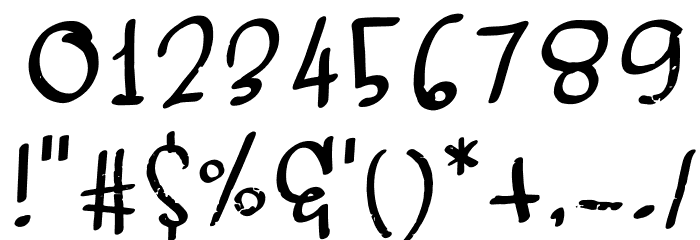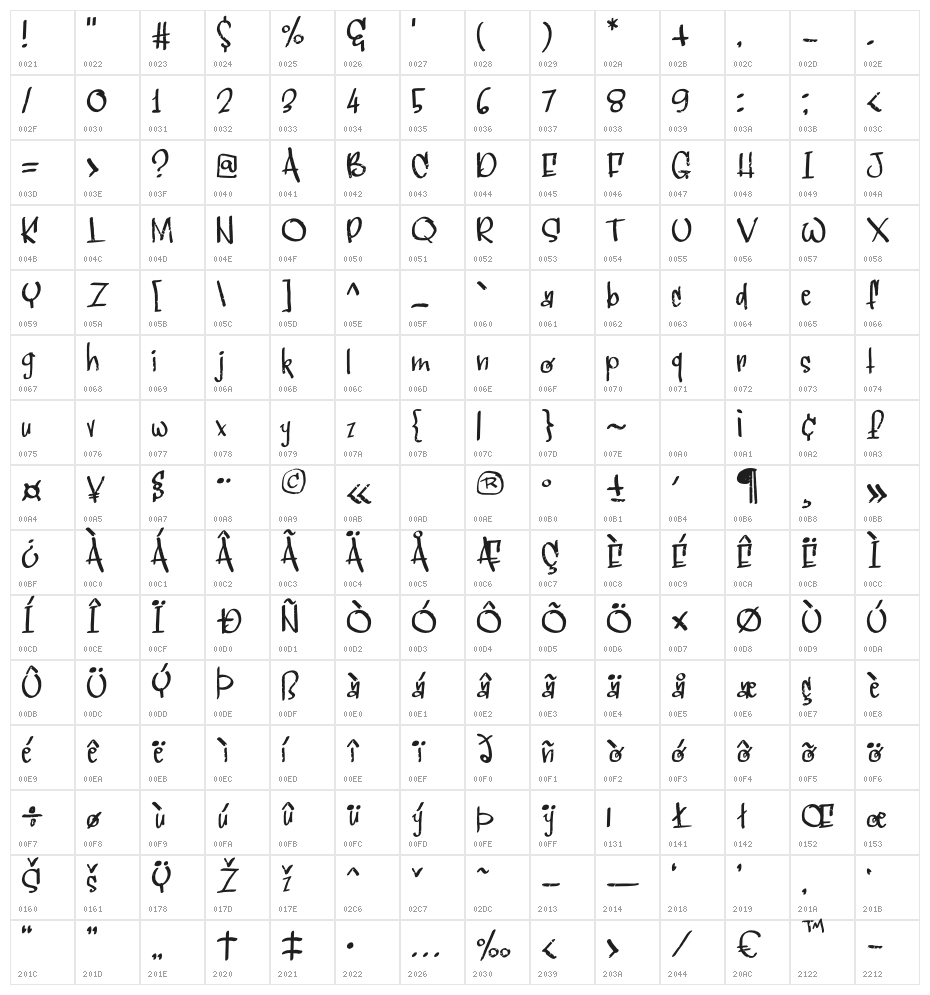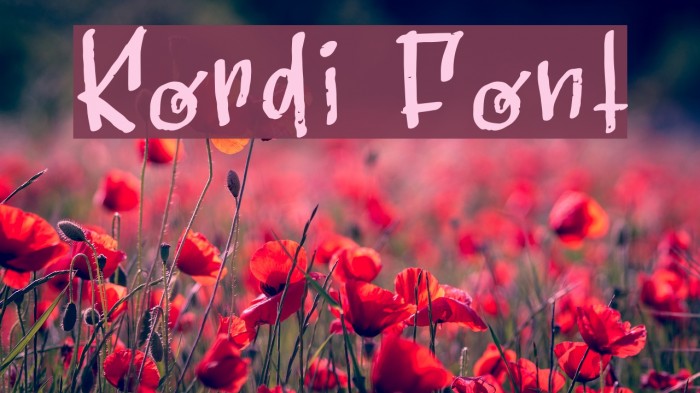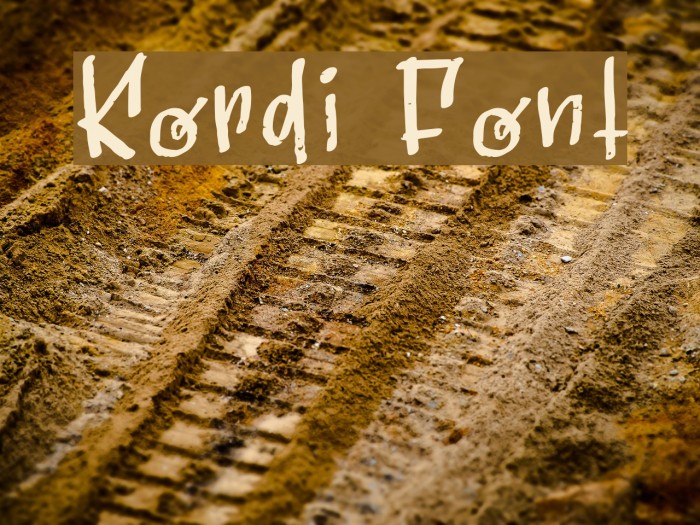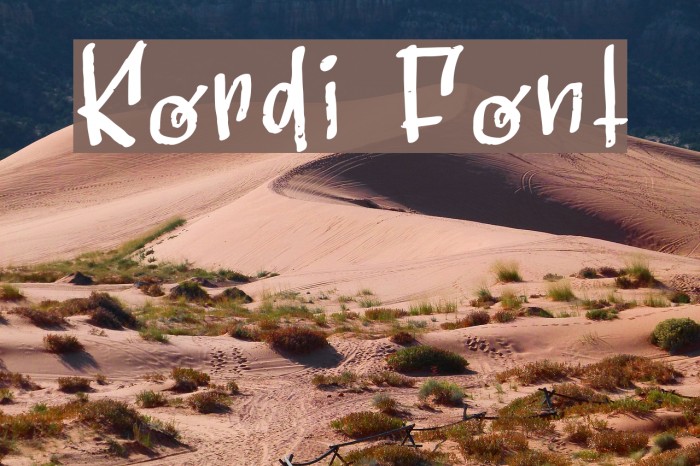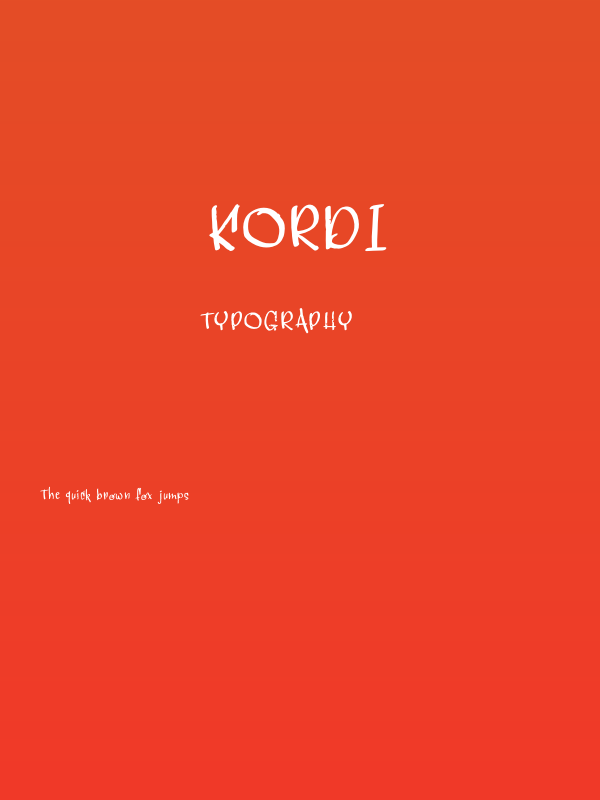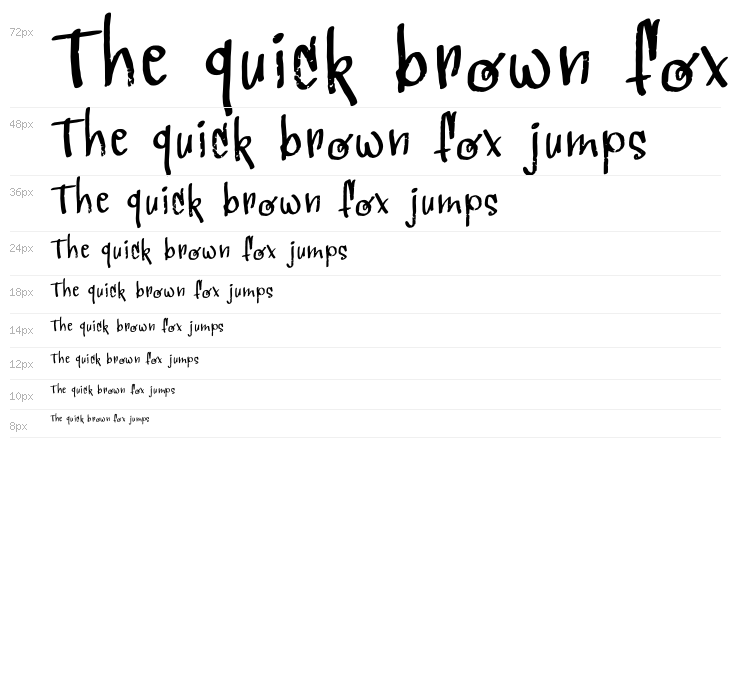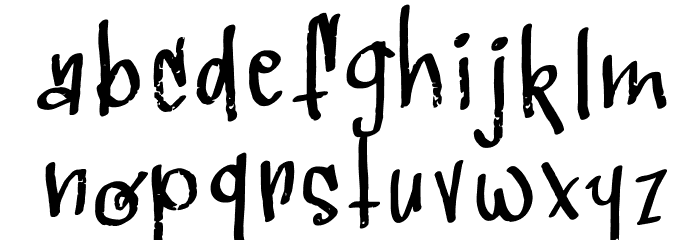
Kordi Font
Kordi Description
This font features a bold, expressive style with a hand-drawn appearance. The characters are irregular and dynamic, giving a sense of movement and energy. The uppercase and lowercase letters maintain a consistent style, with some letters featuring unique flourishes and strokes that add to the font's playful nature. The numbers and special characters are equally bold and maintain the same hand-crafted aesthetic. This font is perfect for projects that require a personal touch or a creative flair.